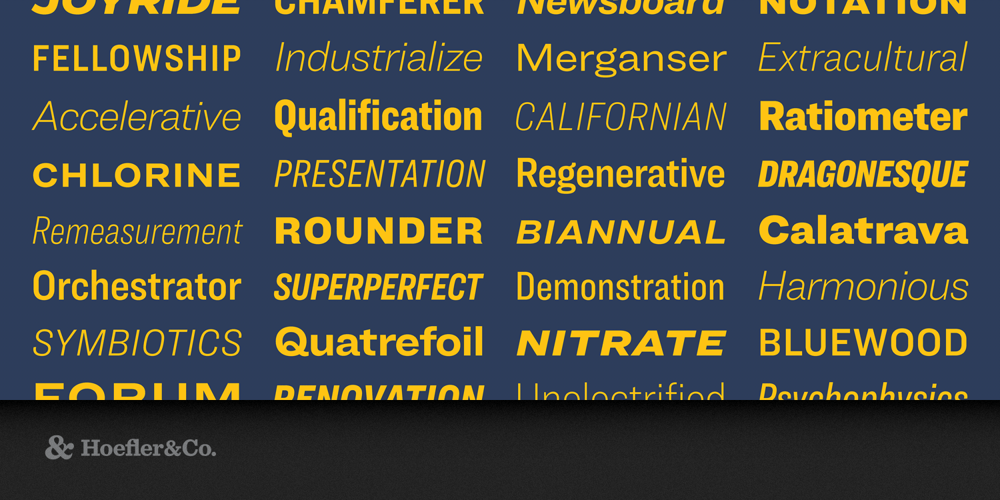
Ringside Font Family was designed by Jonathan Hoefler and Sara Soskolne and published by Hoefler & Co.. Ringside contains 288 styles and family package options. Designed for diversity instead of homogeneity, Ringside brings to the modern superfamily some of the charming individuality of the potluck sans serif. The Ringside typeface was designed by Jonathan Hoefler and Sara Soskolne in 2016. A reimagining of Hoefler’s earlier Knockout family (1994), Ringside extends this celebration of American vernacular printing into an even broader family of typefaces for small sizes, with variations for both print and screen. An unusually large family, with eight weights across six distinct widths, Ringside first appeared on January 20, 2017, when the outgoing President and First Lady launched the website for The Office of Barack and Michelle Obama. From the desk of the designer: Modernism was a mixed blessing for typography. Half a century before Helvetica and Univers, there were no type families: the designer who hoped to use different weights and widths was left to grope among an anarchic collection of unrelated styles. One font might be bold, another condensed, and only the occasional style might offer an italic. And while the rationalism of the type family brought order to the chaos, offering designers the promise that a sans serif with a Light would also have a Bold, it also drove some of the world’s most colorful sans serifs into extinction. Twenty years ago, our Knockout collection was designed to celebrate the beauty and diversity of nineteenth century sans serif wood types, one of America’s great contributions to type history. Picking up where this project left off is Ringside, a sans serif shaped by new challenges, new influences, and new ideas. Where Knockout was designed for headlines, Ringside is made for text. Its proportions, fit, and details are designed to thrive at the smallest sizes, and each of its weights and widths includes that most essential quality of a dependable text face: a companion italic. Extended character sets that include tabular figures and fractions ensure that designers can use the fonts to articulate even the most complex information, and six parallel families of ScreenSmart® webfonts ensure that Ringside performs flawlessly on every kind of screen. While it offers all the versatility of a rationalized font family, Ringside works to avoid the bland plasticity of digital type. Instead of relying on restrained shapes that can predictably stretch in different directions, Ringside follows different design decisions in each part of the family, to ensure that every style is visually distinctive. Its most compact faces, Ringside Compressed and Condensed, feature romans with flat sides and parallel gestures, paired with italics whose swelling curves and subtle diagonals offer a contrasting texture. In its broader Narrow and Regular, flat sides are traded for round ones, giving both designs the familiar visual rhythms of traditional text faces. And the broadest designs, Ringside Wide and Extra Wide, introduce fully-curved characters with diagonal stroke endings, lending the design both warmth and character.